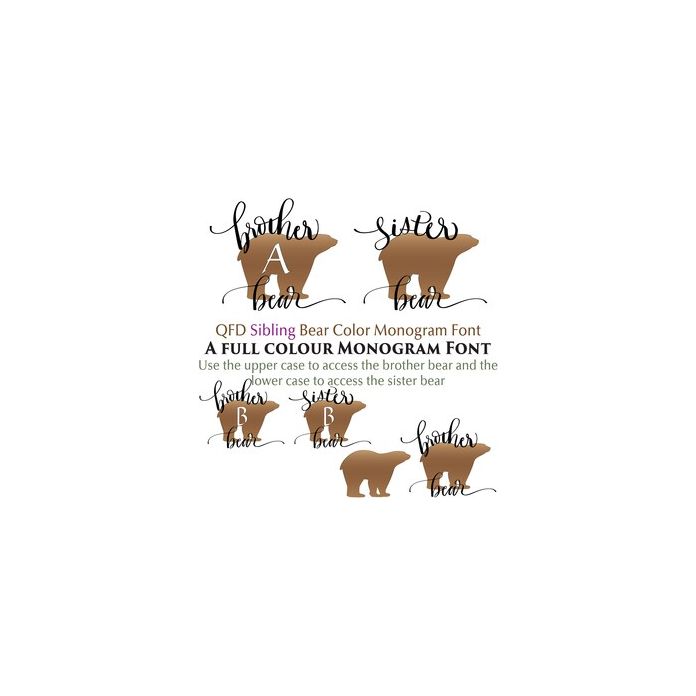
How adorable are these family members? Make sure you see the other family members in this collection. Use the upper case to access the brother bear monograms and the lower case to access the sister monograms. Use the period, comma and to access the additional designs.